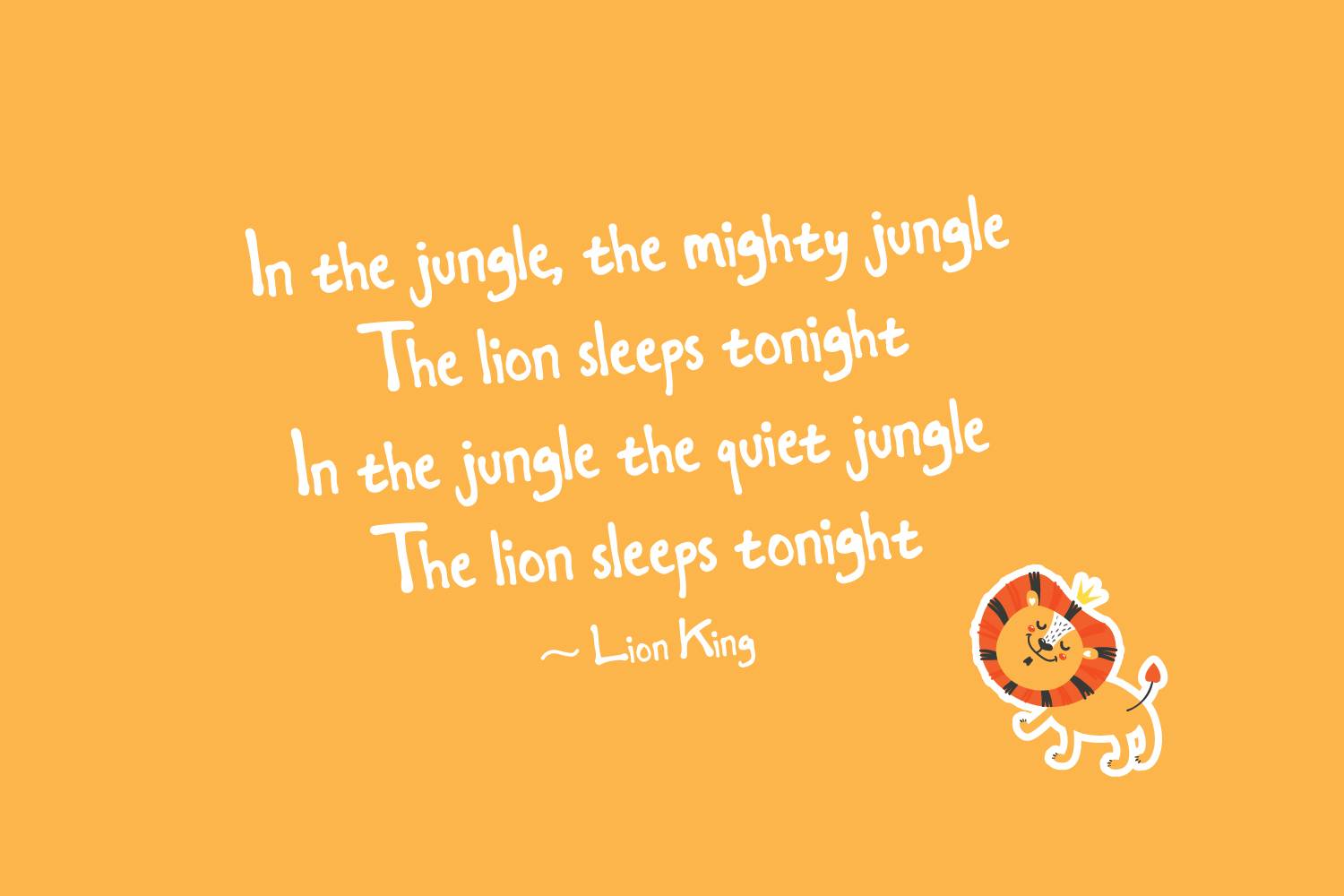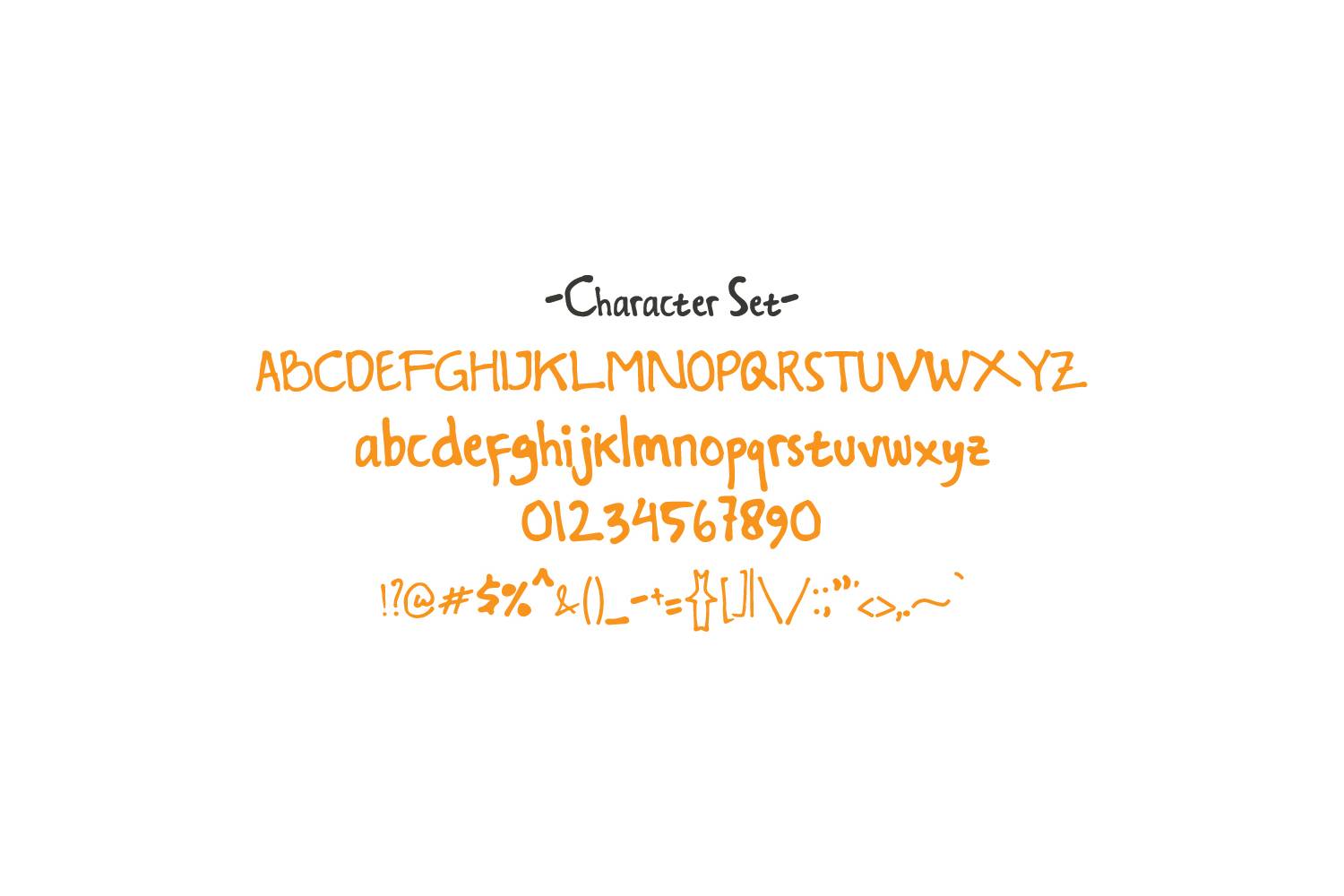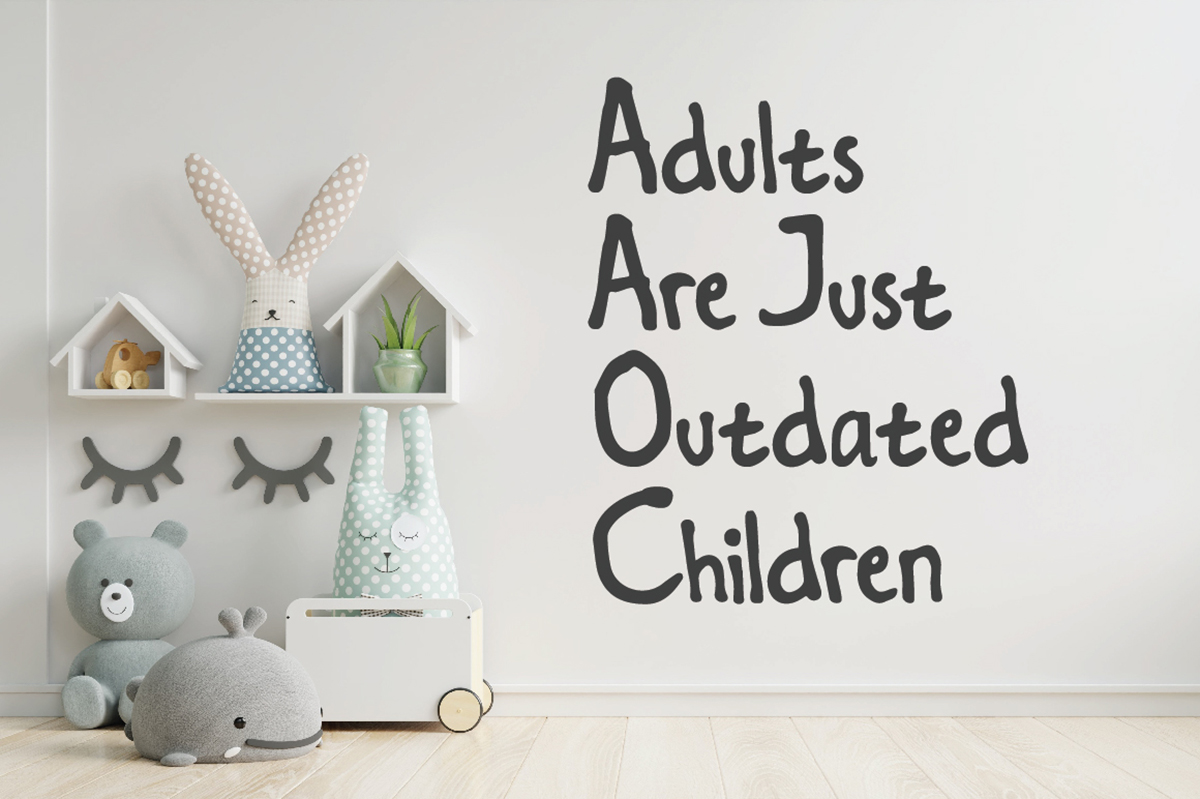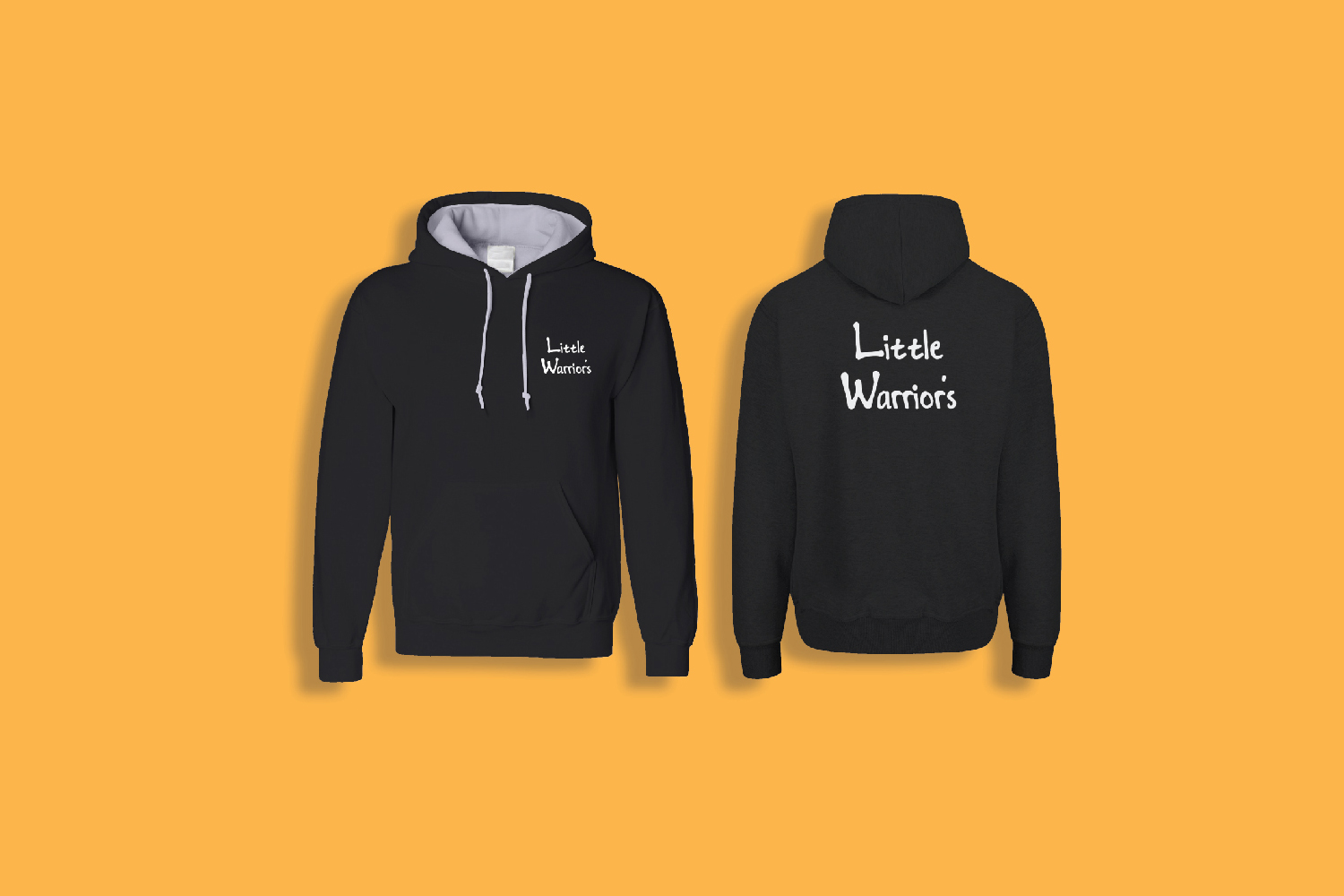
Delions is a playful and casual handwritten sans serif font characterized by its irregular, rounded letterforms and medium weight strokes. With a slightly narrow width and a friendly, approachable style, it features unique quirks like the single-story 'a' and distinct ampersand, making it perfect for informal, creative projects. This font works well in children's books, casual branding, and fun editorial layouts where a personal, whimsical touch is desired.
Delions Font
About Delions Font
| Font family | Delions Font |
| Designer | Pradipta Creative |